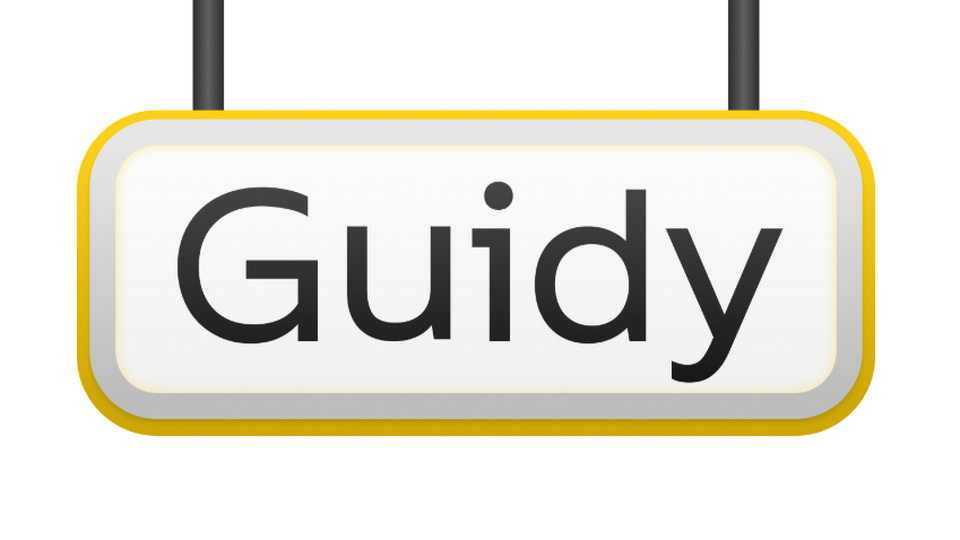
Download Guidy font, a wayfinding typeface tailored to specific needs of most modern Cyrillic languages. Guidy is a geometric grotesque with humanistic roots.